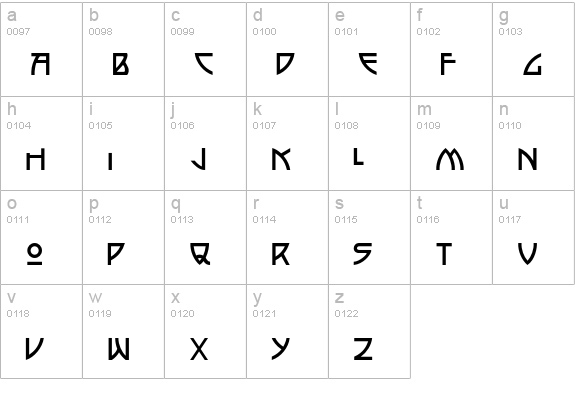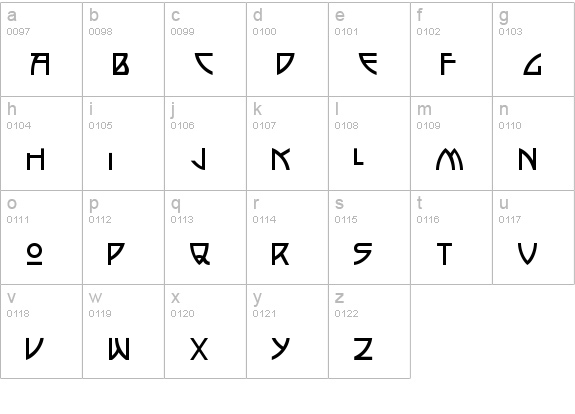
ArtsAndCraftsRegular Font Details
ArtsAndCraftsRegular font is a delightful display font that exudes creativity and charm. With its unique design and playful aesthetic, this font is perfect for adding a touch of whimsy to your arts and crafts projects. Whether you're working on a DIY project or creating handmade cards, this font will bring a fun and artistic flair to your designs. And the best part? ArtsAndCraftsRegular font is completely free to download at FontsMarket.com! Simply visit the website and start using this delightful font in your projects today. Let your creativity shine with ArtsAndCraftsRegular font - the perfect choice for all your arts and crafts endeavors.